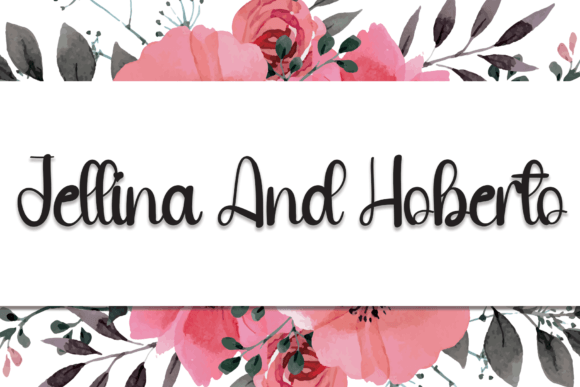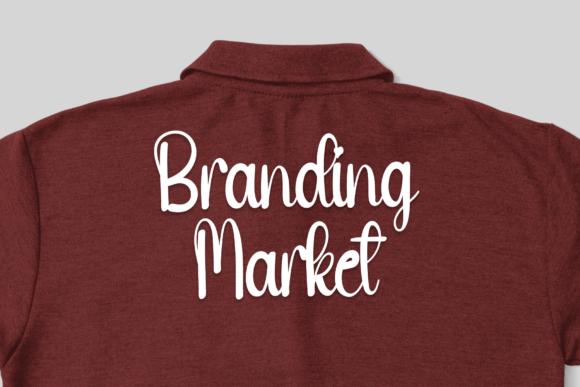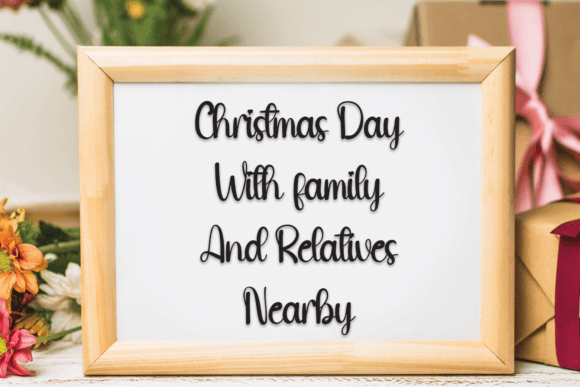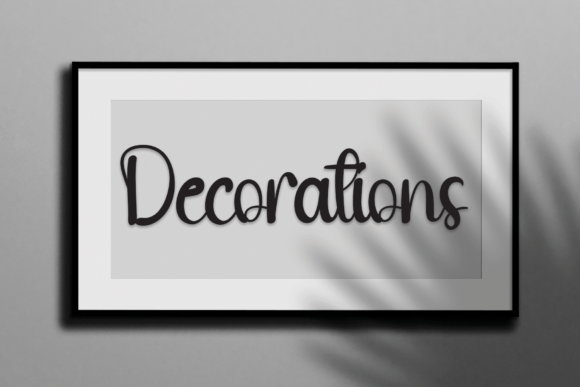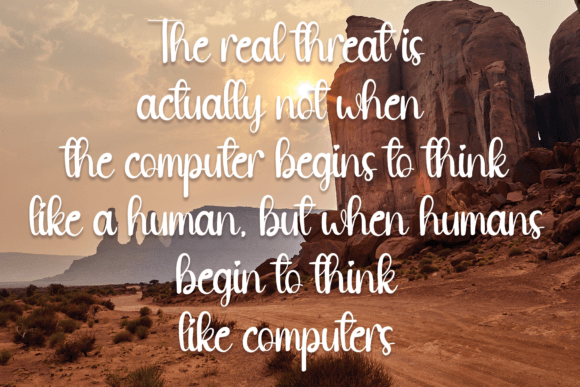
About Handmade Farmhouse Font
Handmade Farmhousefont is a charming and elegant handwritten script that adds warmth and personality to any design. It perfectly balances rustic charm with sophistication, making it a versatile choice for a variety of creative projects. Whether you’re designing wedding invitations, thank you cards, quotes, greeting cards, logos, or business cards, Handmade Farmhousefont brings a unique, handcrafted feel that elevates your work.
Rustic Elegance in Handwriting
This font features flowing, graceful strokes that imitate natural handwriting, adding a soft and inviting touch to your designs. Its elegant curves and balanced structure make it easy to read while conveying a handcrafted aesthetic. Handmade Farmhouse is ideal for projects that require a personal, heartfelt style.
Ideal for Weddings and Special Occasions
Handmade Farmhousefont excels in wedding-related projects. It adds romance and warmth to invitations and thank-you cards, creating a memorable impression for guests. Its handcrafted vibe also suits various celebrations, ensuring your designs feel intimate and special.
Versatility for Branding and Business
Beyond personal use, Handmade Farmhousefont is great for branding and professional materials. It can enhance logos and business cards by imparting a friendly, approachable style with an elegant twist. This font’s rustic yet refined look fits well with many industries, including boutiques, cafes, and artisanal products.
Why Choose Handmade Farmhouse Font?
Handmade Farmhousefont offers a blend of charm, elegance, and versatility. Its handcrafted appearance gives your projects a unique and inviting character. Whether you’re working on wedding stationery or branding, this font is a valuable addition to your design toolkit, helping your creations stand out with a beautiful handwritten touch.